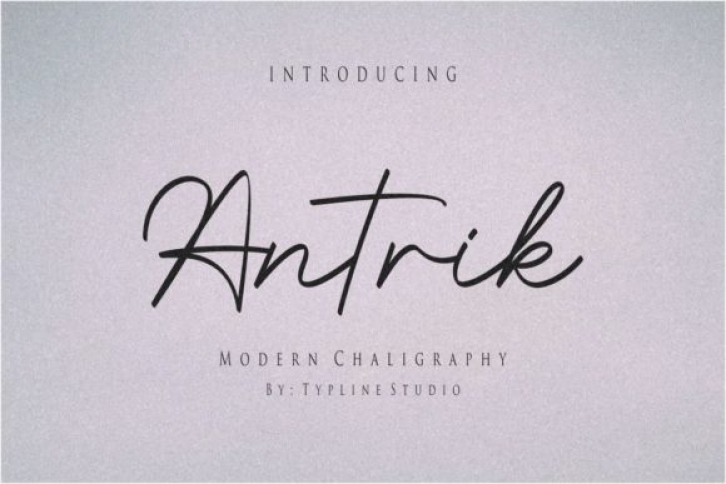
Antrik is a dazzling handwritten font. Refined and delicate, this font will make each of your designs look gorgeous. Antrik is PUA encoded which means you can access all of the glyphs and swashes with ease!